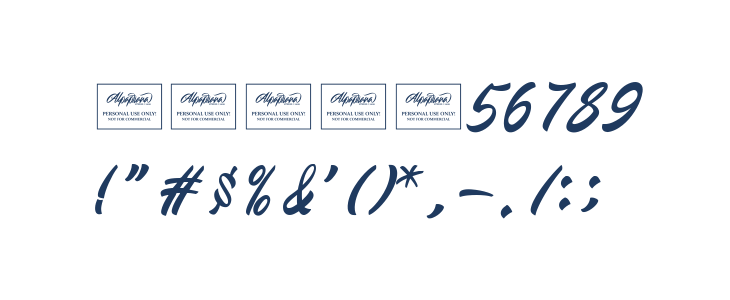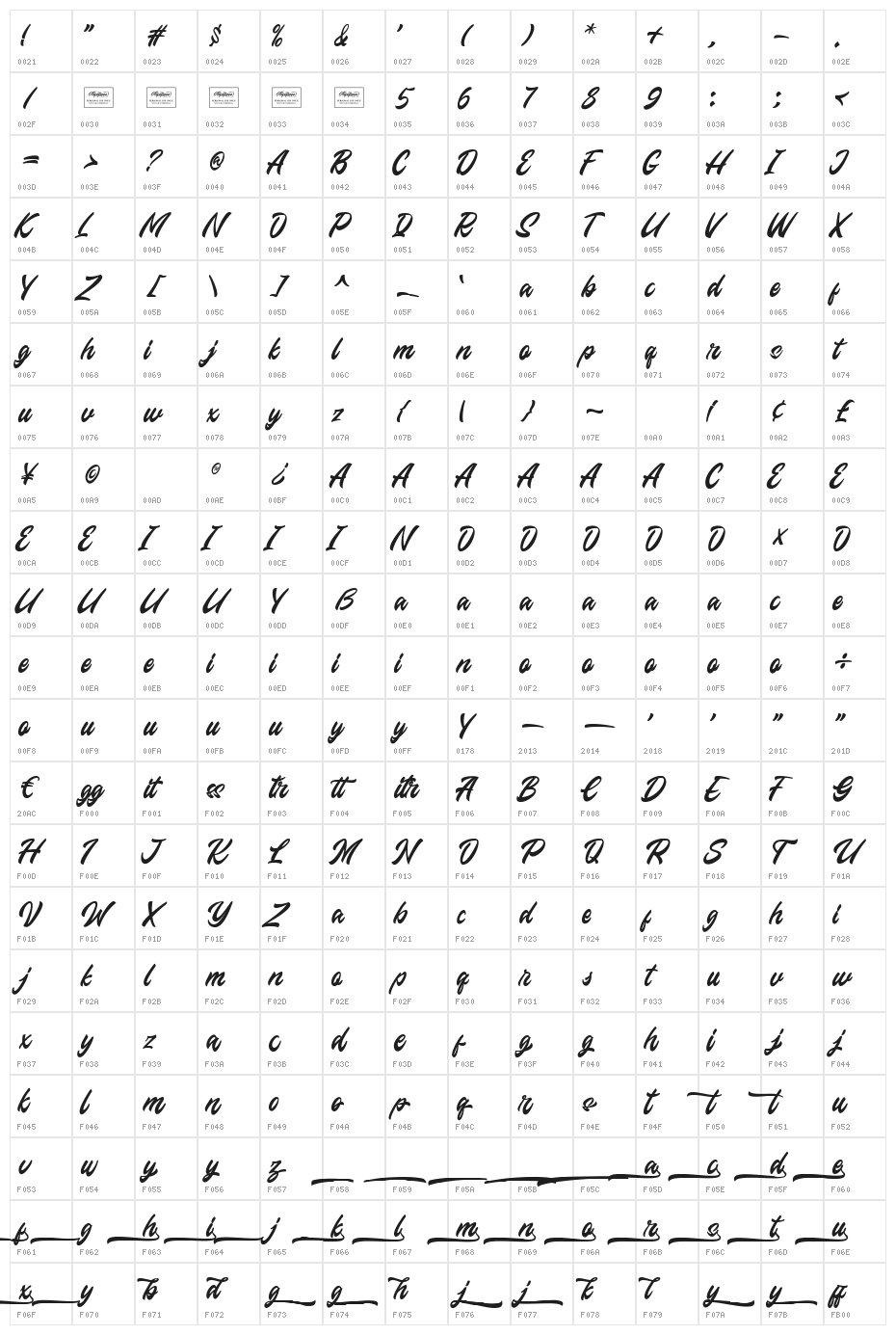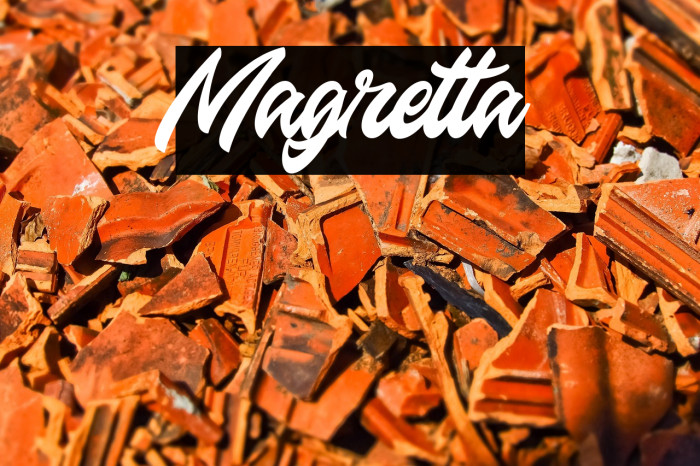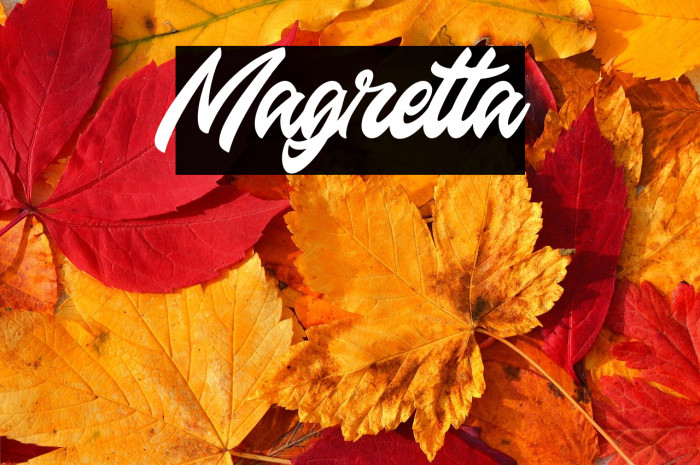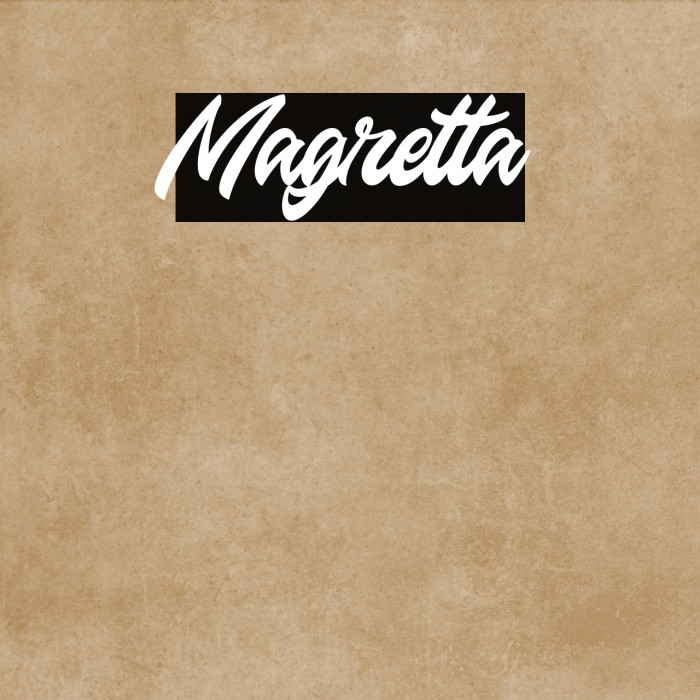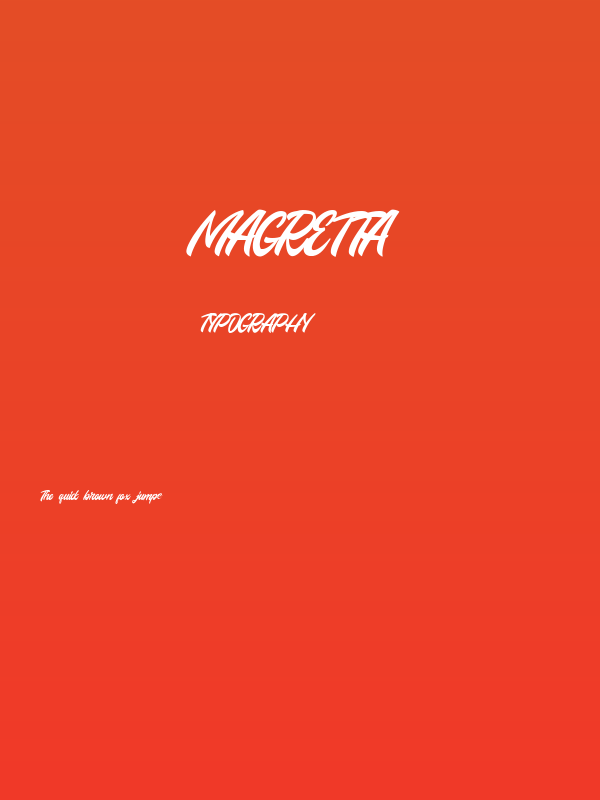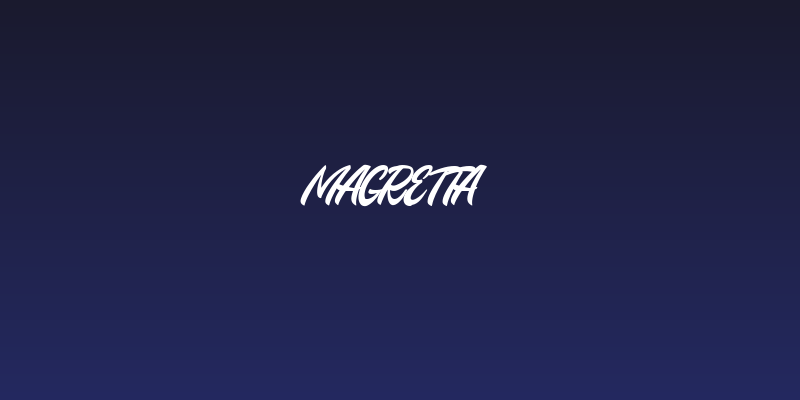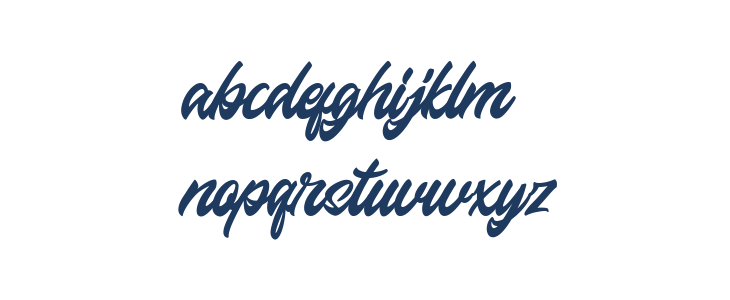
Magretta Font
Magretta Description
This font exhibits a bold, flowing script style that mimics the fluidity of handwriting. The letters are connected in a cursive manner, giving it a dynamic and elegant appearance. The uppercase letters are particularly striking with their sweeping curves and loops, while the lowercase letters maintain a consistent flow. The numbers and special characters are designed to match the overall aesthetic, ensuring a cohesive look across all text. This font is ideal for creating a personal and artistic touch in design projects.